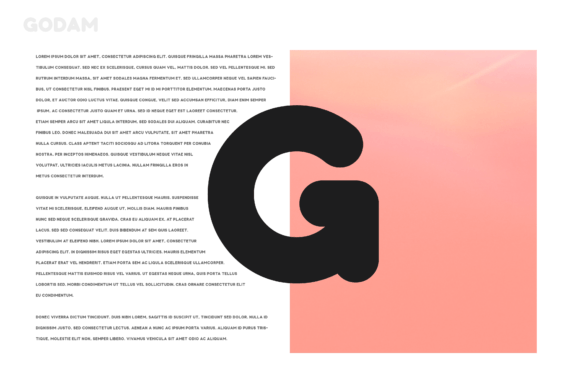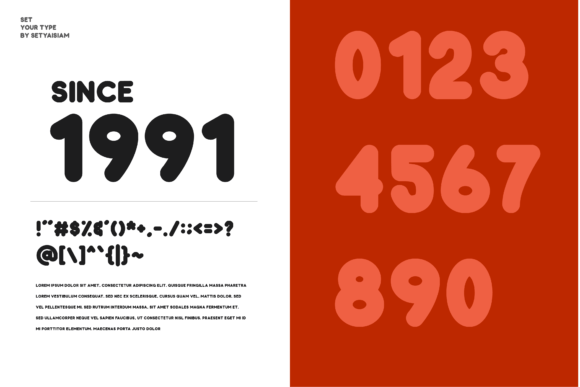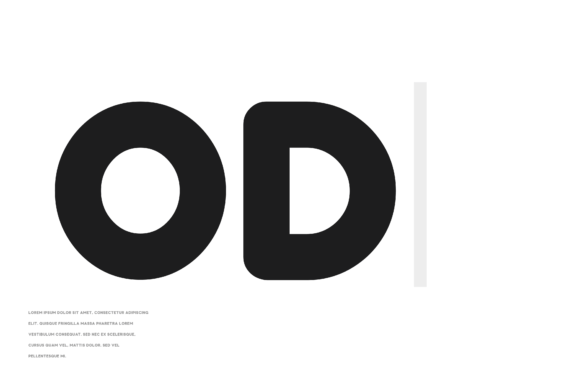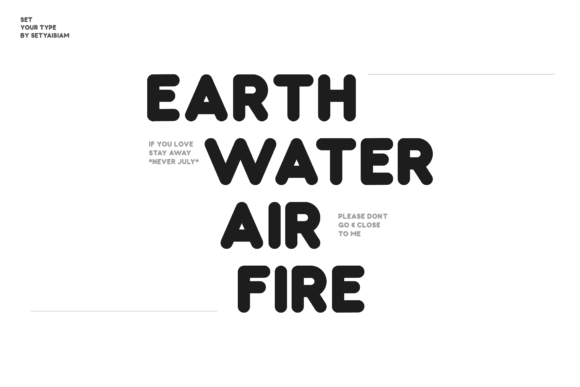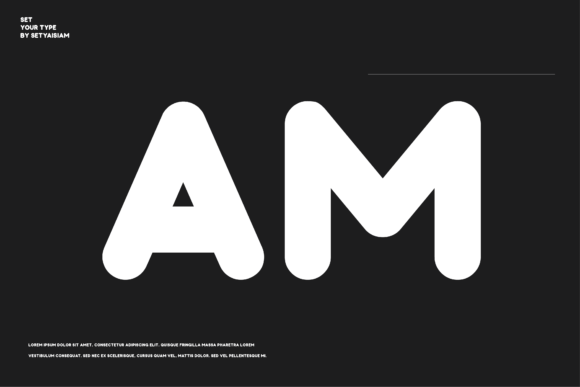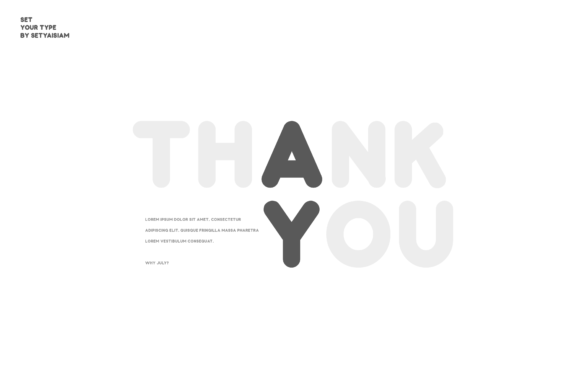
The Ultimate Guide to Godam Font: A Cute and Charming Display Font
I’ll never forget the time I was working on a project for a children’s book, and I just couldn’t find the right font to match the playful and whimsical illustrations. The client wanted something that would appeal to kids and parents alike, but everything I tried seemed either too boring or too over-the-top. That’s when I stumbled upon Godam Font, and it was love at first sight! 💕
Godam is a cute and charming display font that’s whimsical and a bit quirky, making it perfect for brightening up any design. In this article, I’ll share my honest review of Godam Font, provide a practical guide on how to use it, and explore similar fonts and alternatives.
- Unique and playful design that’s perfect for kids’ projects, party invitations, or social media graphics
- Easy to read, even at smaller sizes ✅
- Supports OpenType features, glyphs, and stylistic alternates for added versatility
- Works beautifully with both digital and print designs
Small Quirks and Limitations 🤔
- May not be suitable for body text or long-form content due to its display font nature ⚠️
The Backstory Behind Godam Font
Godam Font was designed by a team of creatives who wanted to create a font that would bring a smile to people’s faces. Inspired by playful and whimsical designs from around the world, they crafted a font that’s both cute and charming. Whether you’re a designer, crafter, or creative hobbyist, Godam Font is sure to delight!
| Author | setyaisiam |
Q: What is Godam Font best used for?
A: Godam Font is best used for display purposes, such as titles, headings, and short-form content. It’s perfect for kids’ projects, party invitations, social media graphics, and more.